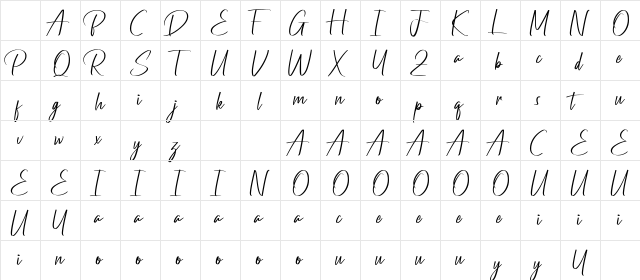
Complete Pandemi Demo Regular glyph index. Displaying only characters natively supported by Pandemi Demo Regular font.
Pandemi Demo is a composed and adaptable typeface that performs quietly and consistently across a wide range of design contexts.